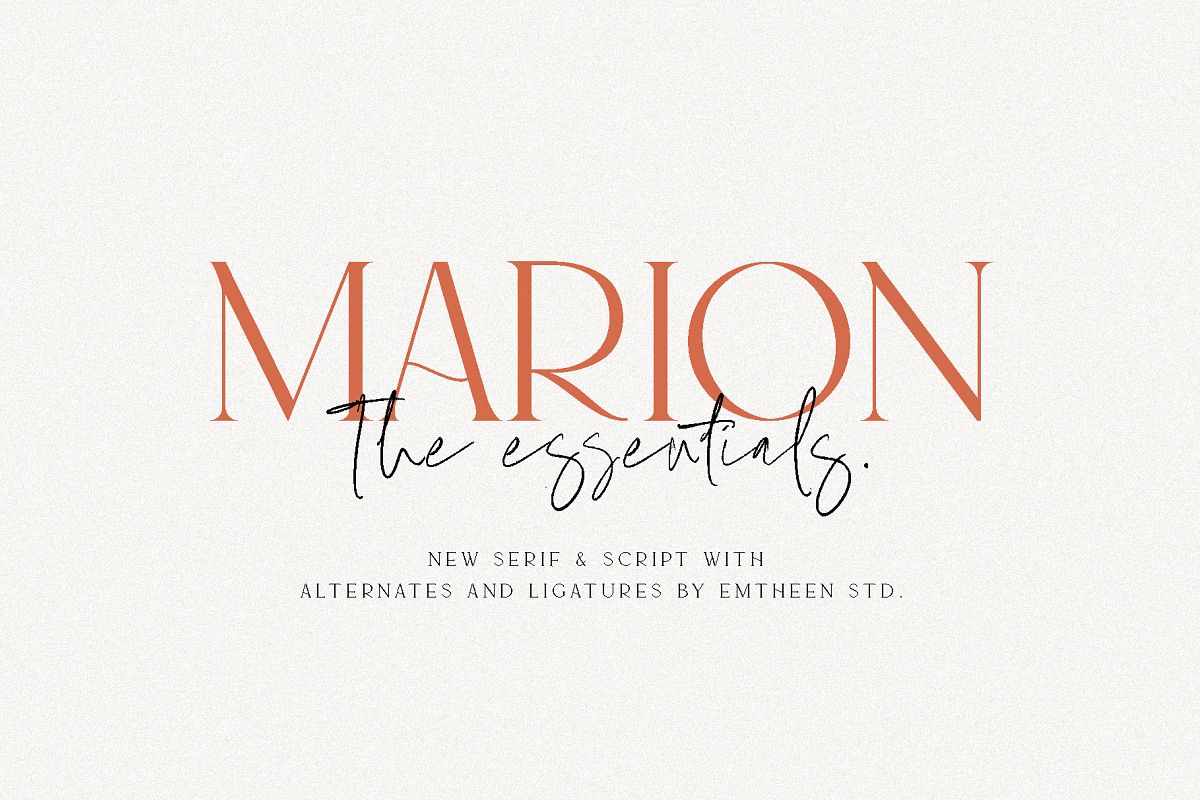
MARION & The Essentials
Marion & The essentials are the matching fonts between serif which are fonts elegant and handsome with beautiful handwriting fonts that are pretty, firm and a little texture in every letter
Font collaboration makes design more beautiful and elegant with minimalist style